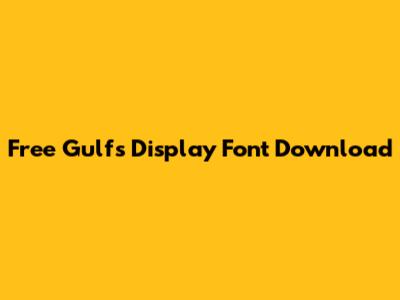
Free Gulfs Display Font Download
Hey guys! Are you on the hunt for a cool, eye-catching display font to spice up your design projects? Look no further! Today, we're diving into the world of the Gulfs display font, a typeface that’s been making waves in the design community. This font is perfect for headlines, posters, branding, and anything that needs a touch of modern flair. In this article, we'll explore what makes the Gulfs display font so special, where you can download it for free, and how to use it effectively in your projects. Let's get started!
What Makes the Gulfs Display Font Special?
The Gulfs display font stands out due to its unique blend of modern and classic design elements. Its clean lines and distinctive letterforms make it incredibly versatile. Whether you're working on a sleek, minimalist design or something with a bit more personality, this font can adapt to fit your needs. One of the key features of the Gulfs font is its readability. Despite being a display font, it maintains excellent legibility even at smaller sizes, which is a huge plus for projects that require both impact and clarity. The font family often includes various weights and styles, giving you plenty of options to play with. From bold and impactful headlines to lighter, more delicate subheadings, the Gulfs font provides a cohesive look across your entire design.
Designers love the Gulfs display font for its ability to add a touch of sophistication to any project. Its geometric structure and balanced proportions make it visually appealing and easy on the eyes. Moreover, the font often comes with a variety of glyphs and ligatures, allowing you to create unique and customized typography. This level of detail can really set your designs apart and give them a polished, professional look. Think about how you can use the different weights and styles to create visual hierarchy in your designs. Use the bolder weights for main headlines to grab attention, and the lighter weights for body text or subheadings to provide contrast and readability. Experiment with different letter spacing and kerning to fine-tune the appearance of the font and achieve the perfect look for your project. With its versatility and aesthetic appeal, the Gulfs display font is a valuable addition to any designer's toolkit. Its unique characteristics make it a go-to choice for projects that demand attention and a touch of elegance.
How to Use the Gulfs Display Font Effectively
Okay, you've got the Gulfs display font downloaded and ready to go. Now, let's talk about how to use it effectively in your designs. Remember, a great font is only as good as the way it's implemented. Start by considering the overall tone and style of your project. The Gulfs display font is versatile, but it works best in designs that need a modern, clean, and slightly sophisticated touch. Think about using it for branding materials, website headers, posters, and social media graphics.
One of the keys to using the Gulfs display font effectively is to pair it with the right complementary fonts. Since Gulfs is a display font, it's best to use it sparingly and combine it with a more neutral and readable font for body text. A classic sans-serif like Open Sans or Lato can work wonders. These fonts provide a clean and unobtrusive backdrop that allows the Gulfs display font to shine. When using the Gulfs display font for headlines, pay attention to the letter spacing and line height. Adjusting these settings can dramatically improve readability and visual appeal. Experiment with different sizes and weights to create a visual hierarchy that guides the viewer's eye. Don't be afraid to get creative with colors. The Gulfs display font looks fantastic in bold, vibrant colors, but it also works well in more subdued and monochromatic palettes. Consider using color to highlight key words or phrases and add visual interest to your designs. Finally, always test your designs on different devices and screen sizes to ensure that the Gulfs display font looks good across the board. What looks great on your computer might not translate well to a mobile device, so it's important to check your work on various platforms.
Examples of Great Designs Using Gulfs Display Font
To give you some inspiration, let's take a look at a few examples of how the Gulfs display font can be used in real-world design projects. Imagine you're creating a poster for a music festival. The Gulfs display font would be perfect for the main headline, grabbing attention with its clean lines and modern aesthetic. You could pair it with a more readable sans-serif font for the event details, ensuring that all the information is clear and easy to read. Think about using a bold color palette to complement the font and create a vibrant and energetic design that captures the spirit of the festival.
Another great example is branding for a tech startup. The Gulfs display font can convey a sense of innovation and sophistication, making it an excellent choice for logos, website headers, and marketing materials. Consider using a minimalist design with plenty of white space to highlight the font and create a clean and professional look. For social media graphics, the Gulfs display font can be used to create eye-catching headlines and captions. Use it to promote new products, announce sales, or share important updates with your followers. Experiment with different layouts and color combinations to create visually appealing graphics that stand out in the crowded social media landscape. Remember, the key to using the Gulfs display font effectively is to be creative and experiment with different design elements. Don't be afraid to try new things and push the boundaries of what's possible. With a little practice, you'll be able to create stunning designs that showcase the beauty and versatility of this fantastic font.
So there you have it! The Gulfs display font is a fantastic choice for adding a touch of modern elegance to your design projects. With its clean lines, versatile styles, and excellent readability, it's a font that you'll reach for time and time again. Remember to download it from a reputable source, experiment with different pairings and styles, and always test your designs to ensure they look great on all devices. Now go out there and create something amazing with the Gulfs display font! Happy designing, guys! I hope this article helped you.